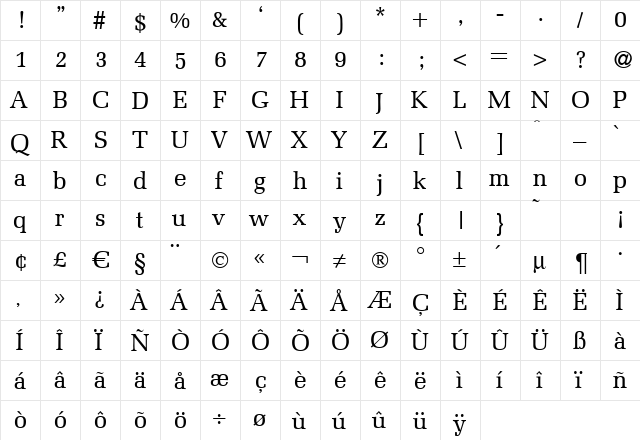
Melmac Regular
Regular · SoftMaker Software GmbH SoftMaker Software GmbH ·
DesignerSoftMaker Software GmbH
Design Context for Melmac Typeface
Melmac takes a measured approach to typography — its balanced proportions and neutral character make it a reliable workhorse for both digital and print work.